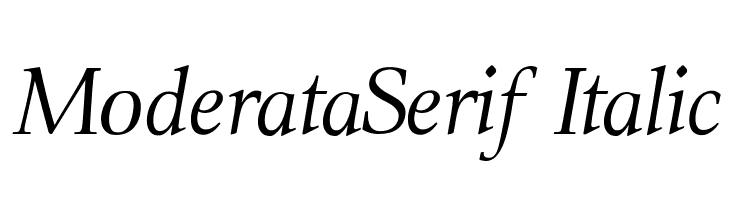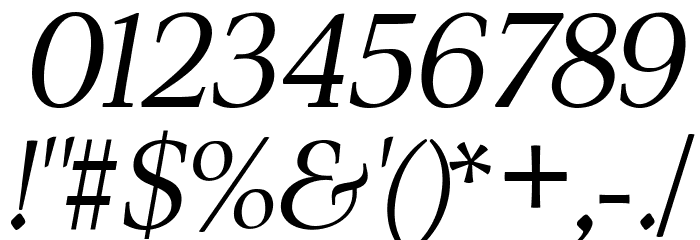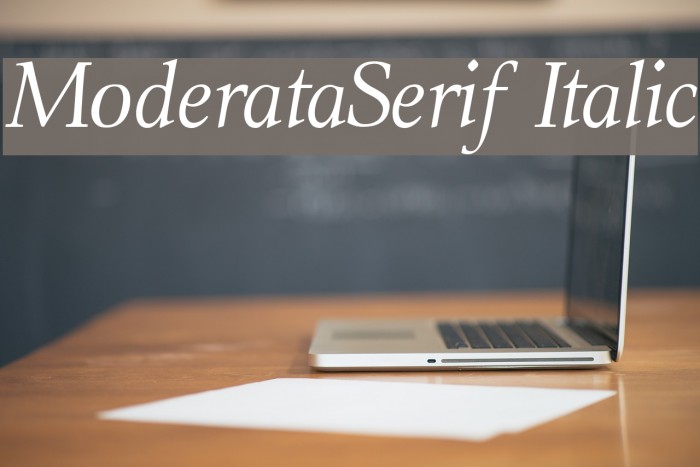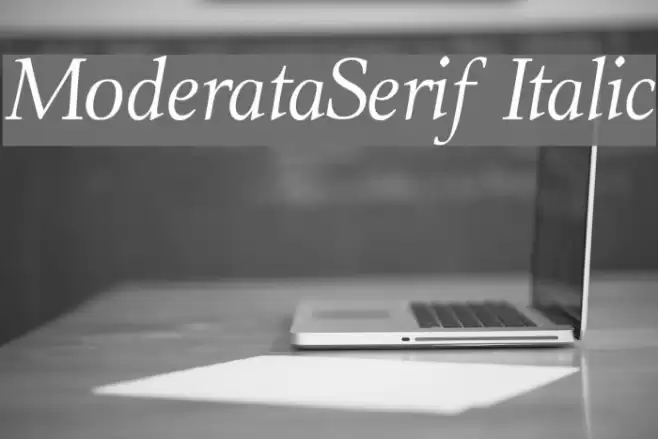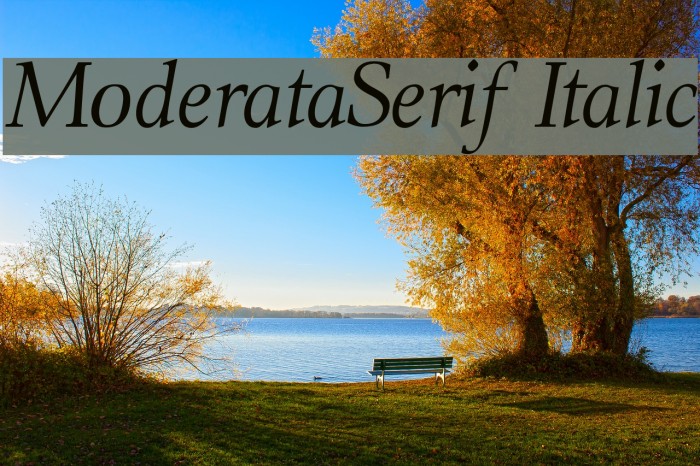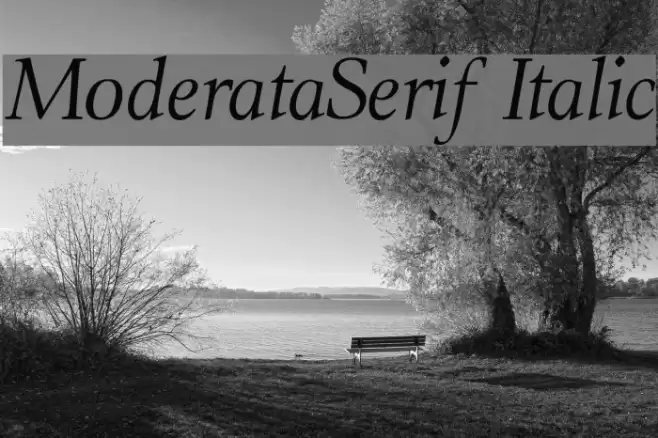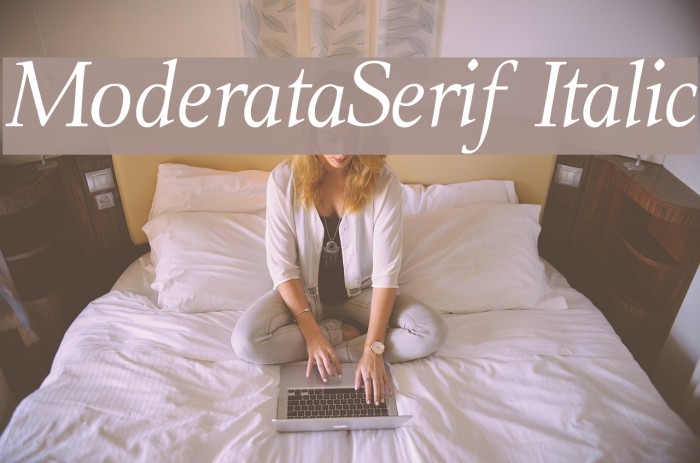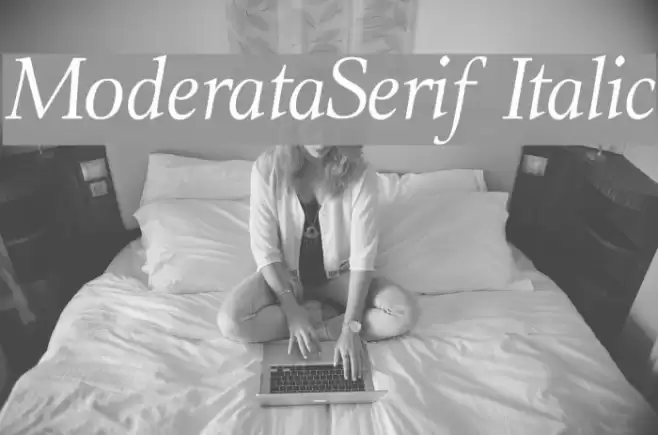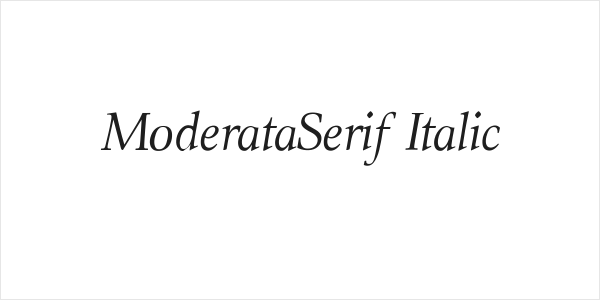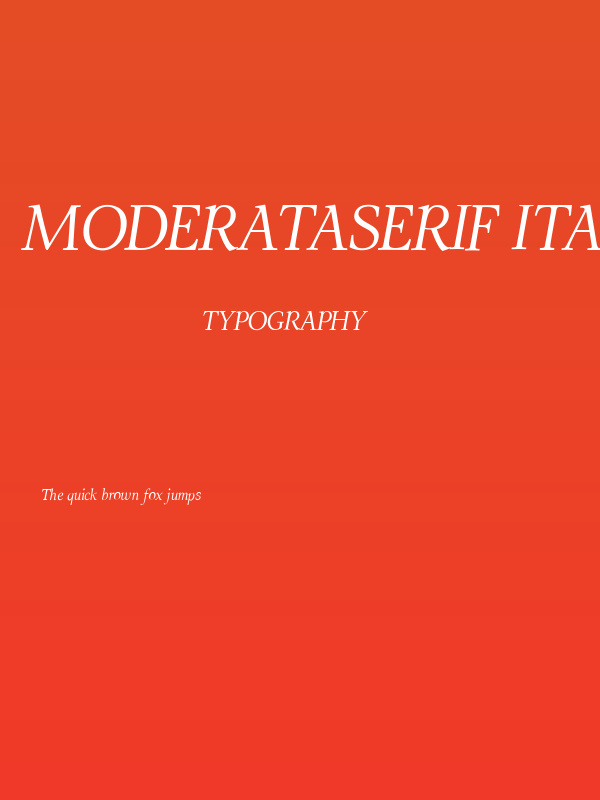
ModerataSerif Italic Font
ModerataSerif Italic Description
This elegant serif font features a classic italic style, characterized by its smooth, flowing curves and refined serifs. The uppercase letters exhibit a traditional formality, while the lowercase letters maintain a graceful continuity. The numerals are well-proportioned, ensuring readability and aesthetic appeal. Special characters are thoughtfully designed, complementing the overall sophisticated appearance. This font's italic nature adds a touch of elegance and dynamism, making it suitable for a variety of formal and creative applications.
| Proposed Projects | Ideal for book covers, wedding invitations, formal documents, and elegant branding. |